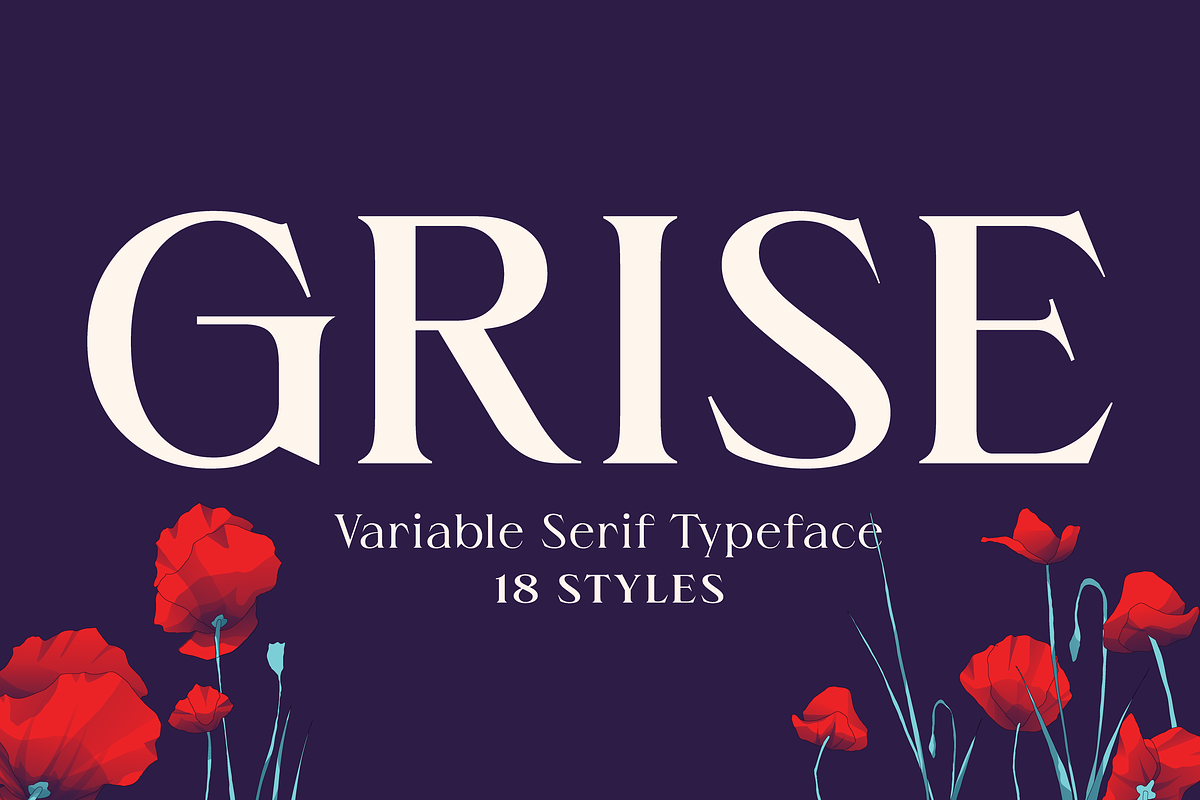
Grise – Variable Serif (18 Fonts) Free Download is a versatile serif typeface family that includes 18 different fonts with a variable style, allowing for a range of weights and widths to create dynamic typography for your designs. Its elegant and modern design makes it perfect for a wide array of creative projects such as editorial layouts, branding, websites, and print media.
With its rich variety of weights, from light to bold, and its clean, refined letterforms, Grise – Variable Serif (18 Fonts) Free Download is ideal for both display and body text. Whether you're working on a magazine, a luxury brand, or a digital platform, this font family provides the flexibility to suit any design style while maintaining sophistication and readability.